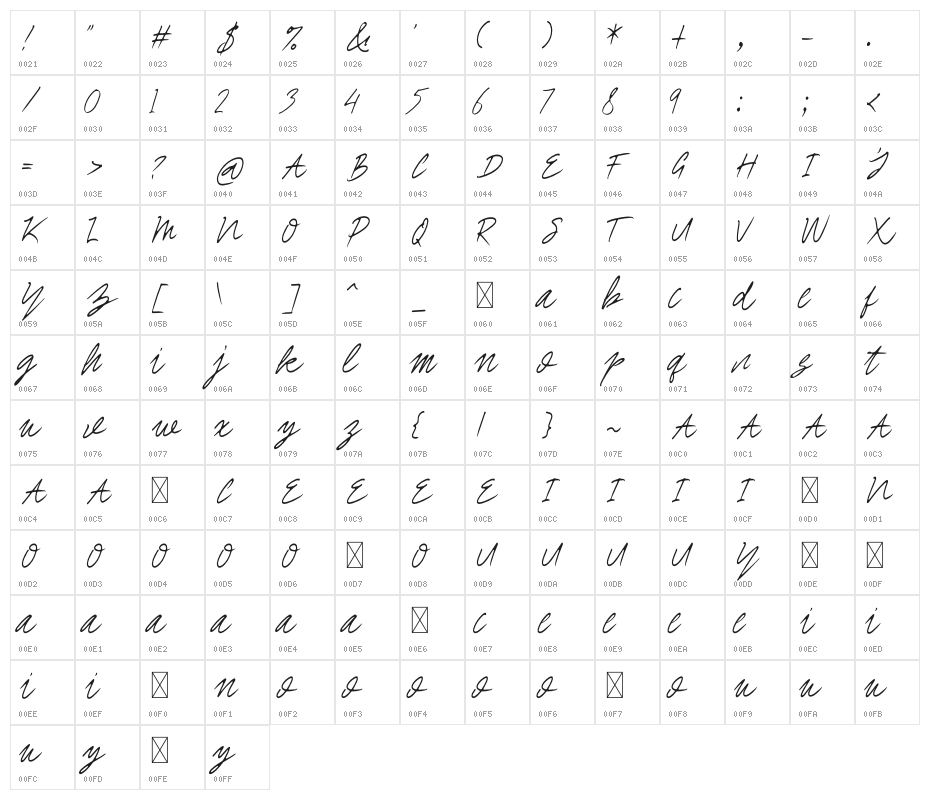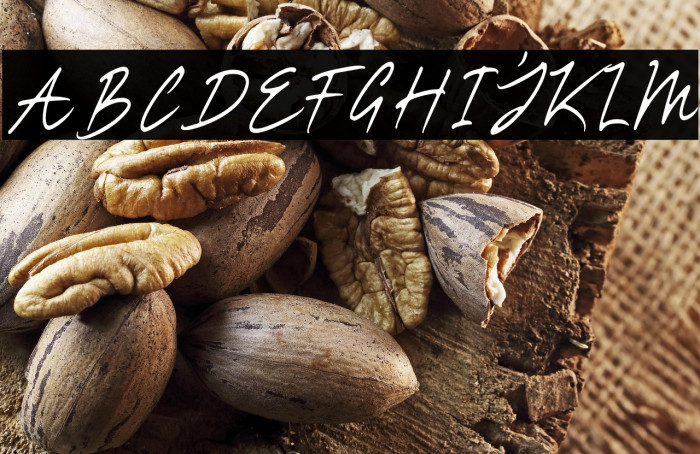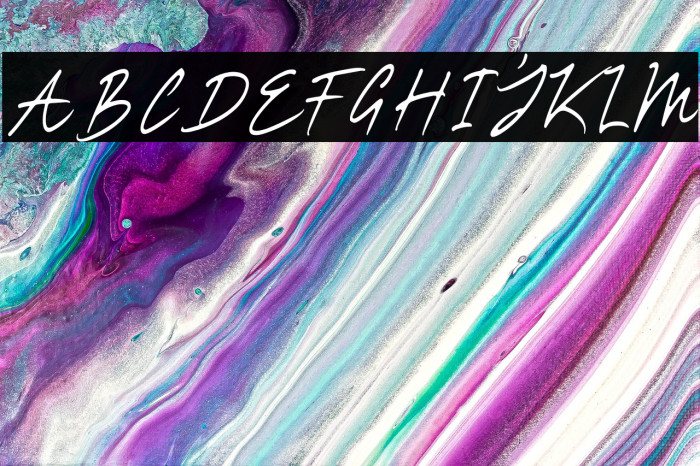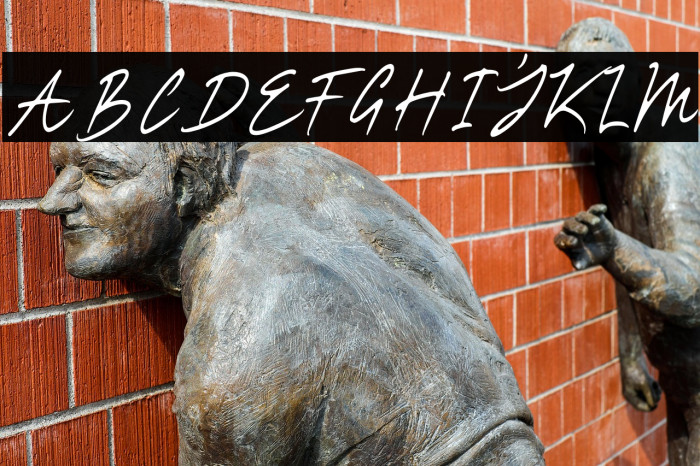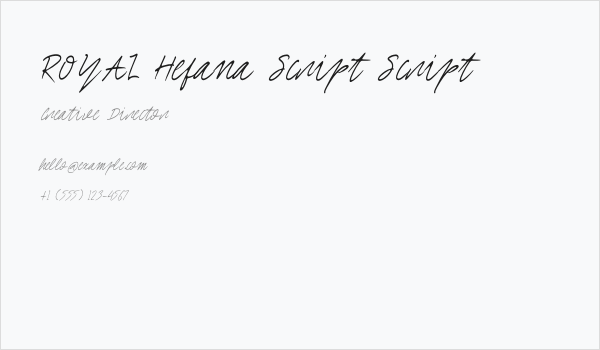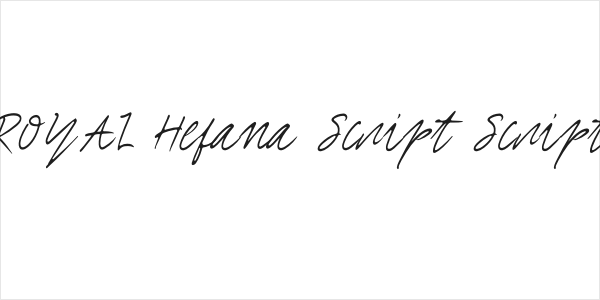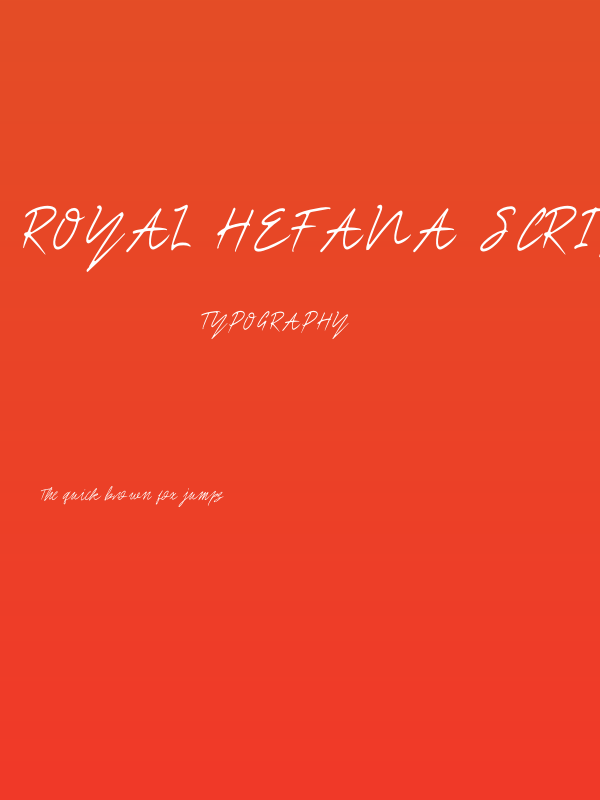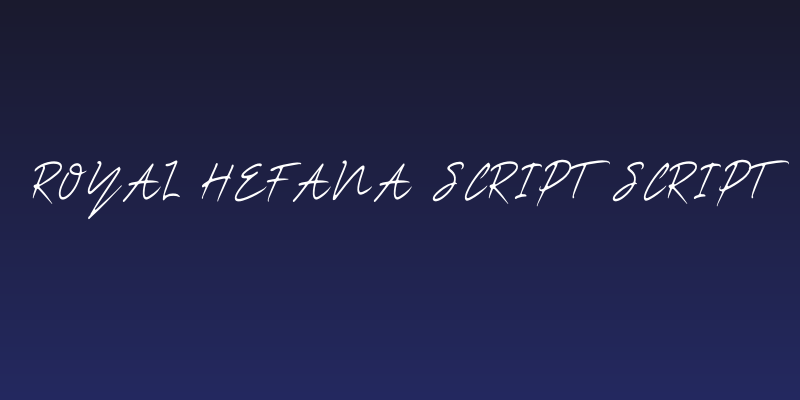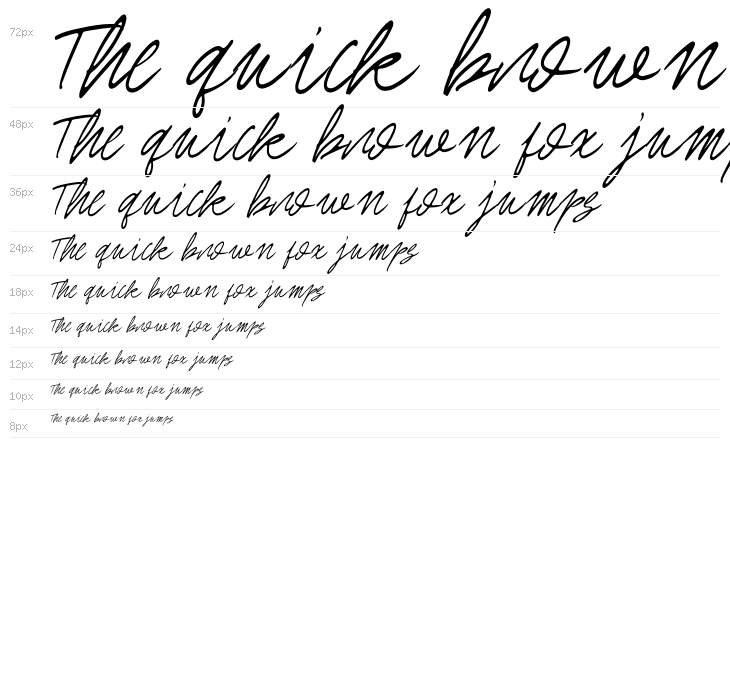
ROYAL Hefana Script Script Font
ROYAL Hefana Script Script Description
This elegant script font exudes a sense of fluidity and grace, characterized by its flowing, cursive style. The letters are interconnected, creating a seamless and harmonious appearance. The strokes vary in thickness, adding a dynamic and lively feel to the text. The uppercase letters are bold and prominent, while the lowercase letters maintain a consistent, smooth flow. The numerals and special characters are designed to complement the overall aesthetic, ensuring a cohesive look across all elements. This font is perfect for projects that require a touch of sophistication and elegance.
| Proposed Projects | Ideal for wedding invitations, elegant branding, greeting cards, and upscale packaging. |